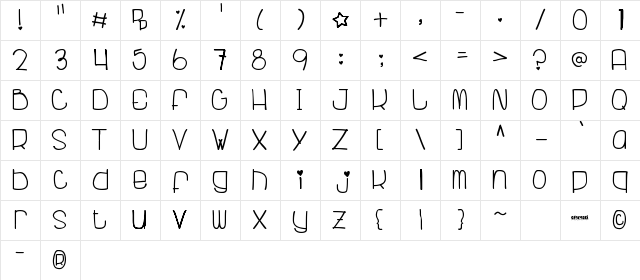
{Tubagus Rangga Efarasti} Regular Free Font
{Tubagus Rangga Efarasti} Regular
Design Context for {Tubagus Rangga Efarasti}
{Tubagus Rangga Efarasti} is a composed and adaptable typeface that performs quietly and consistently across a wide range of design contexts.